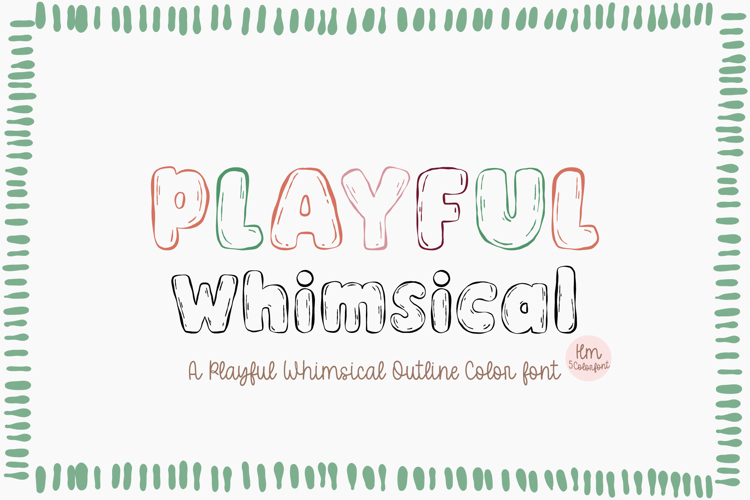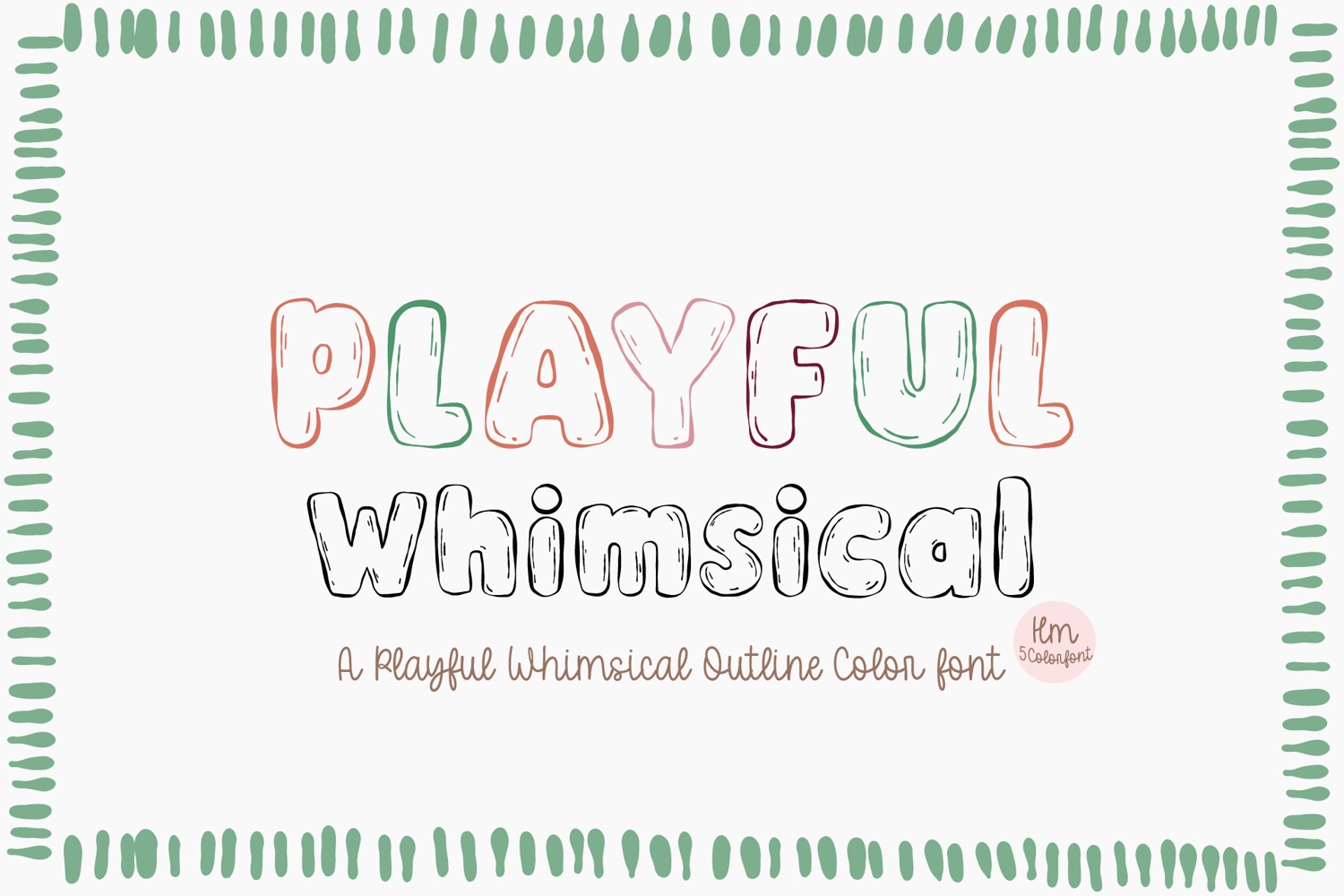
Playful Whimsical
Bring a dose of fun and charm to your projects with the Playful Whimsical 5 Color Font — a delightful hand-drawn outline color font that combines playful lettering with a doodle-style texture. Perfect for stickers, t-shirts, kids' crafts, classroom projects, logos, and print-on-demand designs, this font makes every word look joyful and handmade.
You’ll receive 5 color variations in total, all designed in a soft pastel and sketchy outline style that works beautifully for digital or printable designs.